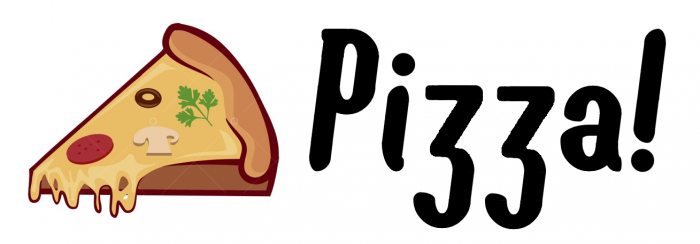
Another pretty one. What about this z?
its hard to believe these r built from square grids
Excuse me the second time, this is nothing more than an example of how my z would look in use.
Alternative "z"  in "`" (Grave accent)
love the ever-so-slight italic/soft design